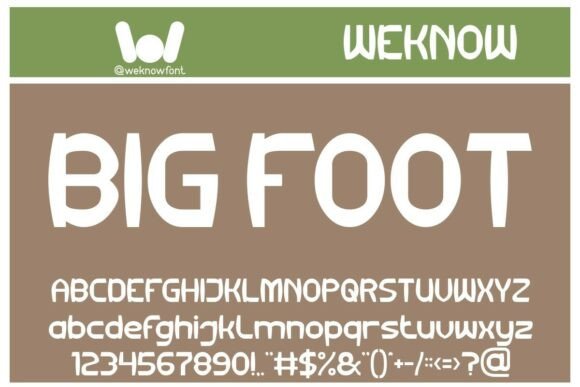
Big Foot Font: Unleash Your Creativity with this Funky Display Font
Welcome to the world of Bigfoot, a funky mix of cartoonish charm and rounded geometry that’s sure to turn heads. This display font is thoughtfully crafted to inject life into your creative endeavors, from intriguing headlines and magnetic brand identities to standout clothing labels. With its eclectic aesthetic, it becomes a perfect companion for your musical, cinematic, or gaming projects.
The Unique Features of Bigfoot Font
Bigfoot font boasts a distinctive blend of playfulness and sophistication, making it an excellent choice for a wide range of applications. Its rounded geometry and cartoonish charm evoke a sense of nostalgia and fun, while its eclectic aesthetic ensures that it stands out from more traditional fonts.
- Cartoonish Charm: Bigfoot font’s playful design is reminiscent of classic cartoons and comics, making it perfect for projects that require a touch of whimsy.
- Rounded Geometry: The font’s rounded shapes and smooth lines create a friendly and approachable feel, ideal for brands and projects that want to convey a sense of approachability.
- Eclectic Aesthetic: Bigfoot font’s unique blend of styles and influences makes it a versatile choice for a wide range of projects, from musical and cinematic to gaming and digital comics.
Applications of Bigfoot Font
Bigfoot font is an incredibly versatile display font that can be used in a variety of creative projects. Here are some of the ways you can use Bigfoot font to elevate your work:
- Headlines and Titles: Use Bigfoot font to create eye-catching headlines and titles that grab attention and draw the reader in.
- Brand Identities: Bigfoot font is perfect for creating unique and memorable brand identities that stand out from the crowd.
- Clothing Labels: Add a touch of personality to your clothing labels with Bigfoot font’s playful and eclectic design.
- Musical, Cinematic, and Gaming Projects: Bigfoot font is a great choice for musical, cinematic, and gaming projects that require a font with a unique and memorable aesthetic.
- Magazines and Books: Use Bigfoot font to add a touch of whimsy and personality to your magazine and book titles, or to create eye-catching chapter headings.
- Digital Comics: Bigfoot font is perfect for digital comics and graphic novels that require a font with a bold and playful personality.
Bigfoot Font in the Digital Age
In today’s digital landscape, it’s more important than ever to have a unique and memorable visual identity. Bigfoot font is perfectly suited to the digital age, with its bold and playful design making it a great choice for social media platforms, websites, and online content.
- Social Media: Use Bigfoot font to create eye-catching social media posts and graphics that stand out from the crowd on platforms like YouTube and Instagram.
- Websites: Add a touch of personality to your website with Bigfoot font, and create a memorable and unique visual identity that sets you apart from the competition.
- Online Content: Bigfoot font is perfect for online content creators who want to add a touch of whimsy and personality to their videos, blog posts, and articles.
Tips for Using Bigfoot Font
Here are some tips for getting the most out of Bigfoot font:
- Experiment with Different Sizes: Bigfoot font looks great in a variety of sizes, from large display fonts to smaller body text.
- Play with Color: Bigfoot font is perfect for use with bright and bold colors, so don’t be afraid to get creative and try out different color schemes.
- Mix and Match: Bigfoot font pairs well with a variety of other fonts, so feel free to experiment and find the perfect combination for your project.
In conclusion, Bigfoot font is a unique and versatile display font that’s perfect for creative projects that require a touch of whimsy and personality. With its eclectic aesthetic and bold design, it’s a great choice for a wide range of applications, from musical and cinematic projects to digital comics and online content. So why not give Bigfoot font a try and see how it can help you unleash your creativity and bring your projects to life?